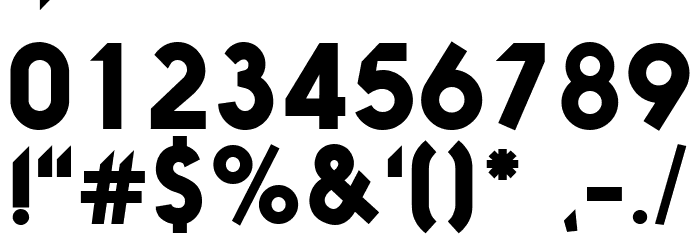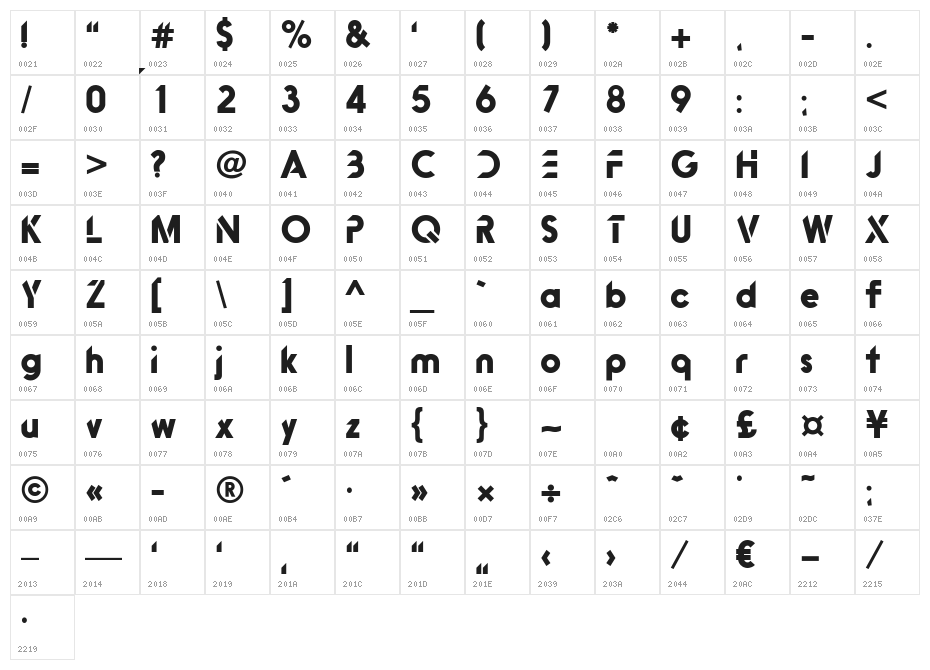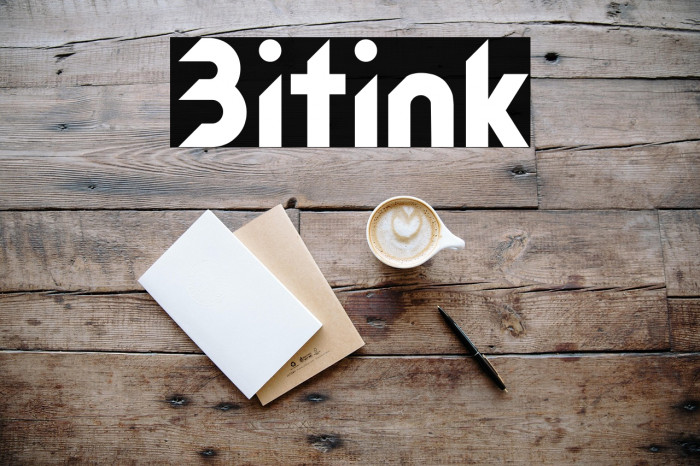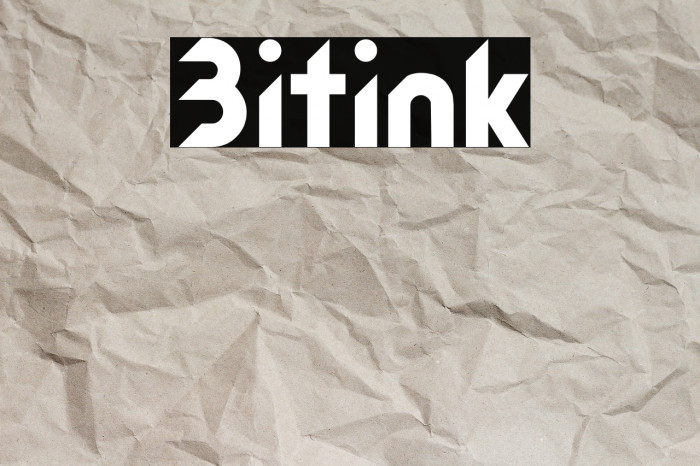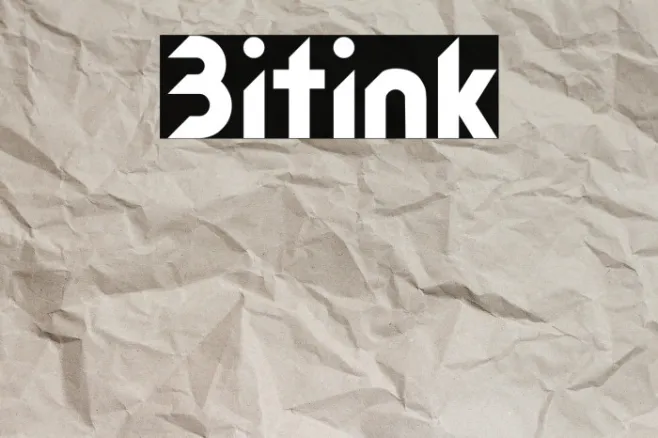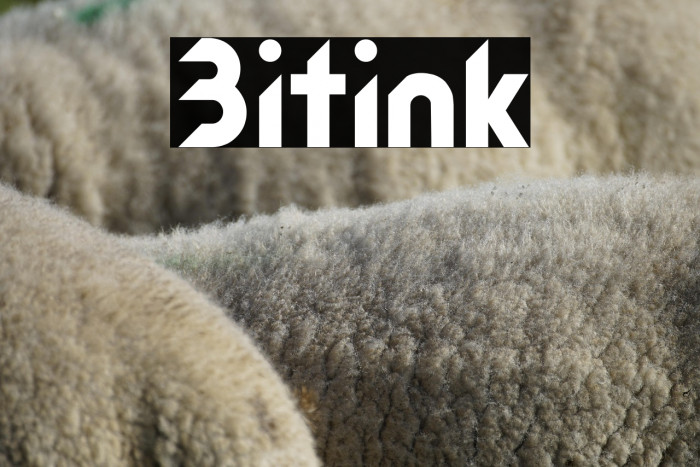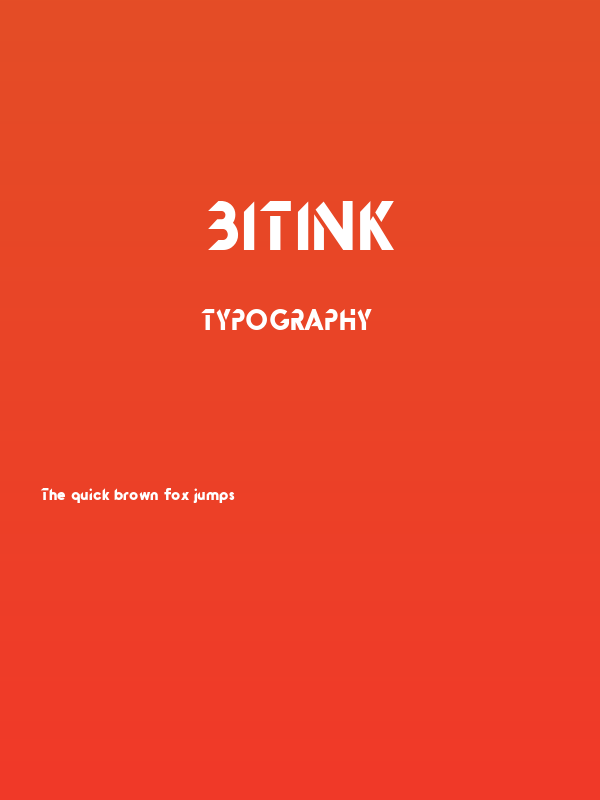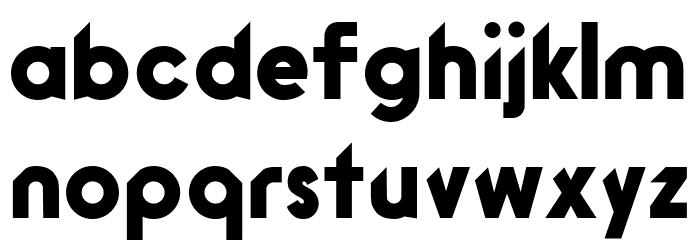
Bitink Font
Bitink Description
This font features a bold and geometric design with a modern aesthetic. The uppercase letters are characterized by sharp angles and clean lines, creating a sense of strength and stability. The lowercase letters maintain a consistent style, offering a harmonious blend with the uppercase. Numbers and special characters are designed to match the boldness and geometric nature of the alphabet, ensuring a cohesive look across all elements. The font's uniform stroke width and lack of serifs contribute to its contemporary feel, making it suitable for a variety of design applications.
| Proposed Projects | Ideal for branding, headlines, posters, and digital media where a strong and modern presence is desired. |